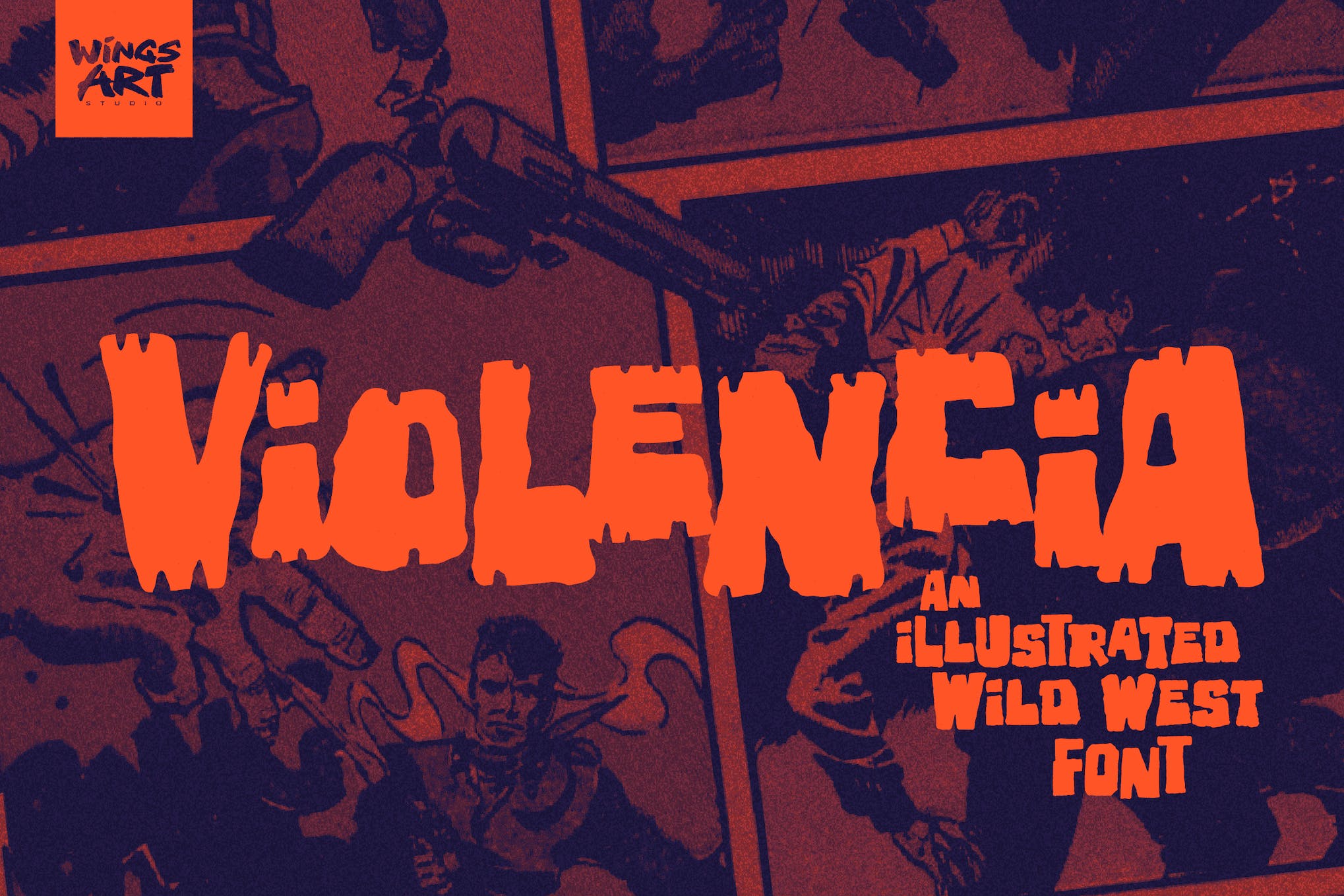
25+ Best Block Letter Fonts for Strong and Bold Typography
Typography can make or break a design. Given its significance, selecting the appropriate font is critical, especially when the project entails conveying strength and boldness. The correct choice of font can create a lasting impact. This post is meticulously curated for those engaged in projects that necessitate the utilization of strong, robust, and impactful typography.
Welcome to a vast compilation of over 25 best block letter fonts. This collection holds both free and paid offerings, each boasting strong and bold characters. It is the perfect amalgamation of audacious, striking fonts that are bound to give your project the powerful allure it merits.
Whether you are creating a bold title, designing impactful marketing material, or simply exploring the world of typography, this list offers a wide array of block letter fonts to achieve a powerful presentation. Unleash your creativity and choose a font that best represents your bold and strong narrative. Your journey to powerful typography starts here.
Pocky Block Typeface
Introducing Pocky Block Typeface, a bold, modern design sporting a uniquely assertive style. Perfect for sports, adventure, or futuristic motifs, it excels in areas like advertising, logos, and motion graphics. Its regular and slanted styles exhibit confidence and speed, backed by 100+ ligatures for intricate lettering. It also includes diverse options such as capital characters, punctuation, symbols, and multilingual support. Enjoy using Pocky Block!
Block Party Typeface
The Block Party Typeface, designed by Jason Walcott, is a playful and bold font that mimics the look of chunky rocks or paper-cut letters. Ideal for designs requiring a childlike, fresh vibe, this typeface instantly adds a fun and casual element to any layout. Available in OpenType format, the downloadable package includes .otf and .ttf versions, compatible with both Mac and Windows, supporting Latin-based and most Eastern European languages.
O’Hanlon Block Font
O’Hanlon Block Font is a versatile, elegantly-crafted typeface that has a unique appeal for logotypes and branding, as well as packaging design. A wonderful feature of this font is its ability to enhance modern and vintage designs alike. An added benefit is a slanted ‘faux-italic’ version, which brings increased dynamism to your design endeavors.
Block Black Typeface
Block Black Typeface is a striking and genuine modern font that embodies boldness in its design. Ideal for an assortment of branding avenues from logo designs to t-shirt prints and esport, this versatile font is an asset that stands out in various settings. It is available in both uppercase and lowercase, accessible in otf and ttf formats.
Block Force Display Font
Block Force Display Font, featuring a bold and untidy style, is a creative asset targeting those wanting to convey strength and assertiveness. It comprises uppercase letters, chiselled with thick, random lines maintaining legibility. Ideal for impactful designs, large titles, and posters, it is simple to install on both PC and Mac. It supports a wide array of languages, from Afrikaans to Zulu and works seamlessly with Adobe Illustrator, Photoshop, and InDesign, and Microsoft Word.
Karl Zone Modern Block
The Karl Zone Modern Block is a powerful, bold font designed to make a striking impact. With its tight spacing, large shape, and a toughness reminiscent of a nail, it’s perfect for headlines, posters, and motivational gym messages when used at a size above 72pt. The font, which can be used on both PC and Mac, offers a wide variety of features including basic Latin, numbers, and punctuation. It’s designed to integrate seamlessly with Adobe Illustrator, Adobe Photoshop, Adobe InDesign, and even Microsoft Word.
White Block Typeface
White Block Typeface offers a striking touch to your brand. This modern, bold display font from Natha Studio combines style and adventure, making it ideal for presentations, designs, branding, quotes, invitations, and web illustrations. Despite its edgy appearance, it remains effortlessly readable. It even offers multilingual options for global appeal, boasts PUA Encoding, and includes numerals and punctuation.
Defrozo Block Font
Defrozo Block Font is a versatile, modern, sans-serif typeface that comes with uppercase letters, numerals, and extensive punctuation. Its contemporary style makes it perfect for web designs, branding, illustrations, badges, and posters. Available in OTF and TTF formats, Defrozo font adds a polished touch to your creative works. In case of any queries, just reach out for help.
Blocking Handmade Display
Introducing ‘Blocking’, a handmade, stylish Display font that draws inspiration from minimalist logos. Its 2 styles, Regular and Stencil, are perfect for a variety of creative needs such as templates, brochures, branding, and more. Lovingly crafted by hand, ‘Blocking’ lends a unique natural touch to designs, making it ideal for use in invitations, book covers, crafts, and other design applications. Please note, images used in previews are for illustration purposes only and are not included.
Converon Cubical Display Font
Converon Cubical Display Font is a unique, decorative typeface with strikingly bold, sharp edges, and playful characters supplemented by some ligatures. Purposefully designed to support over 100 languages, Converon is ideal for creating logos, social media content, titles, and various texts. Its compatibility with sans or serif fonts for secondary text adds to its versatility. You’ll receive the font in both OTF and TTF formats. A fantastic choice for eye-catching work!